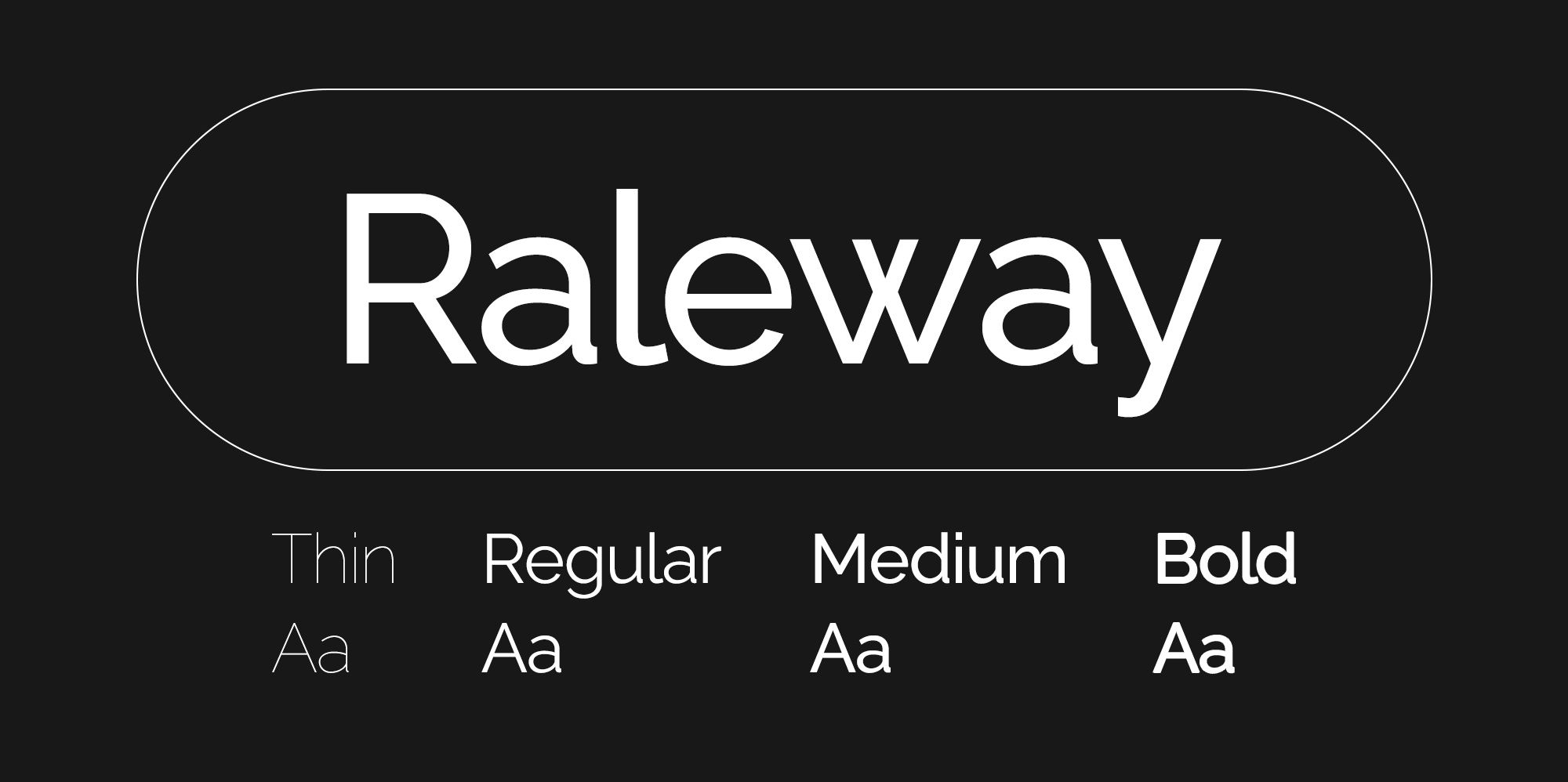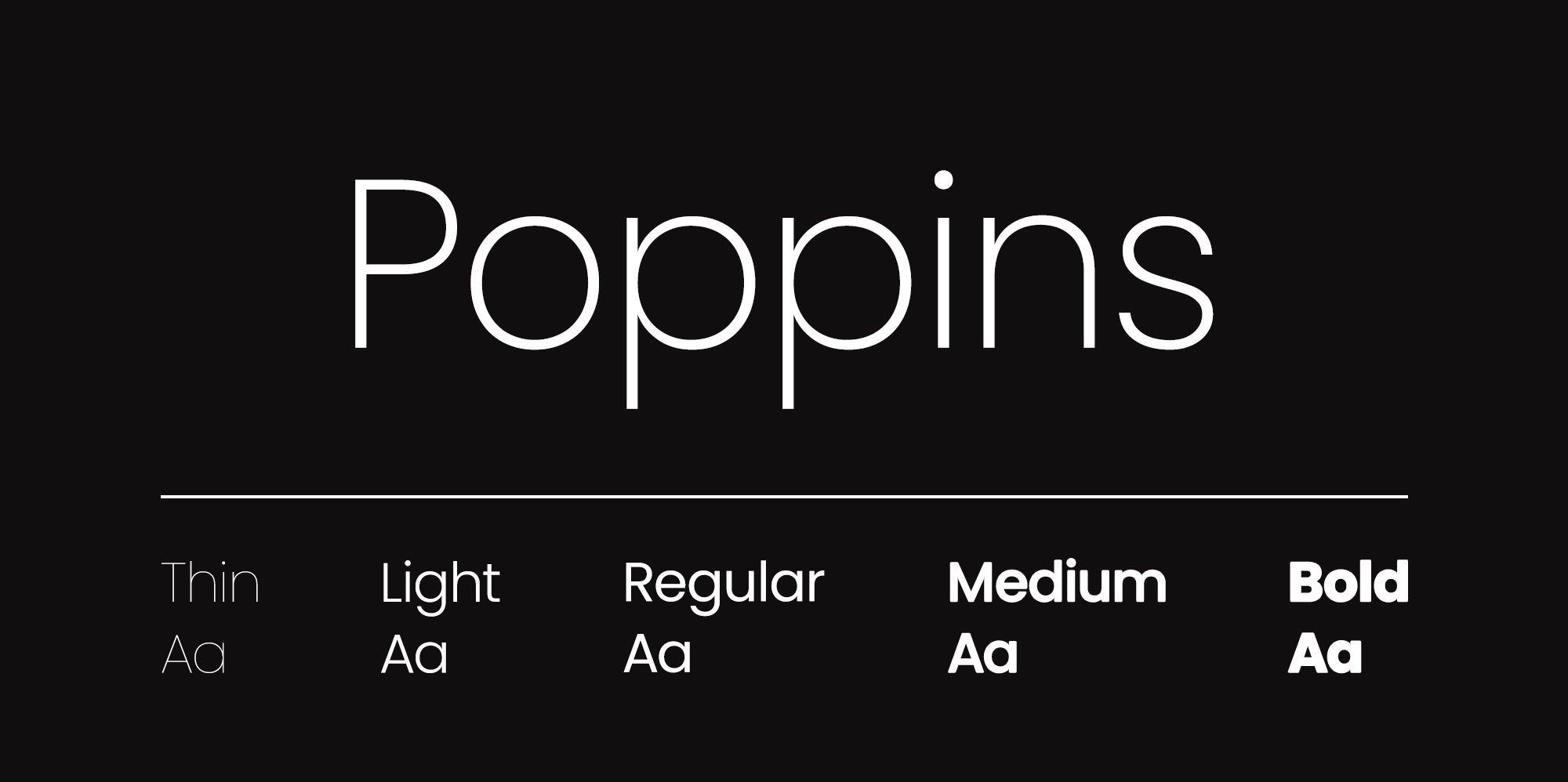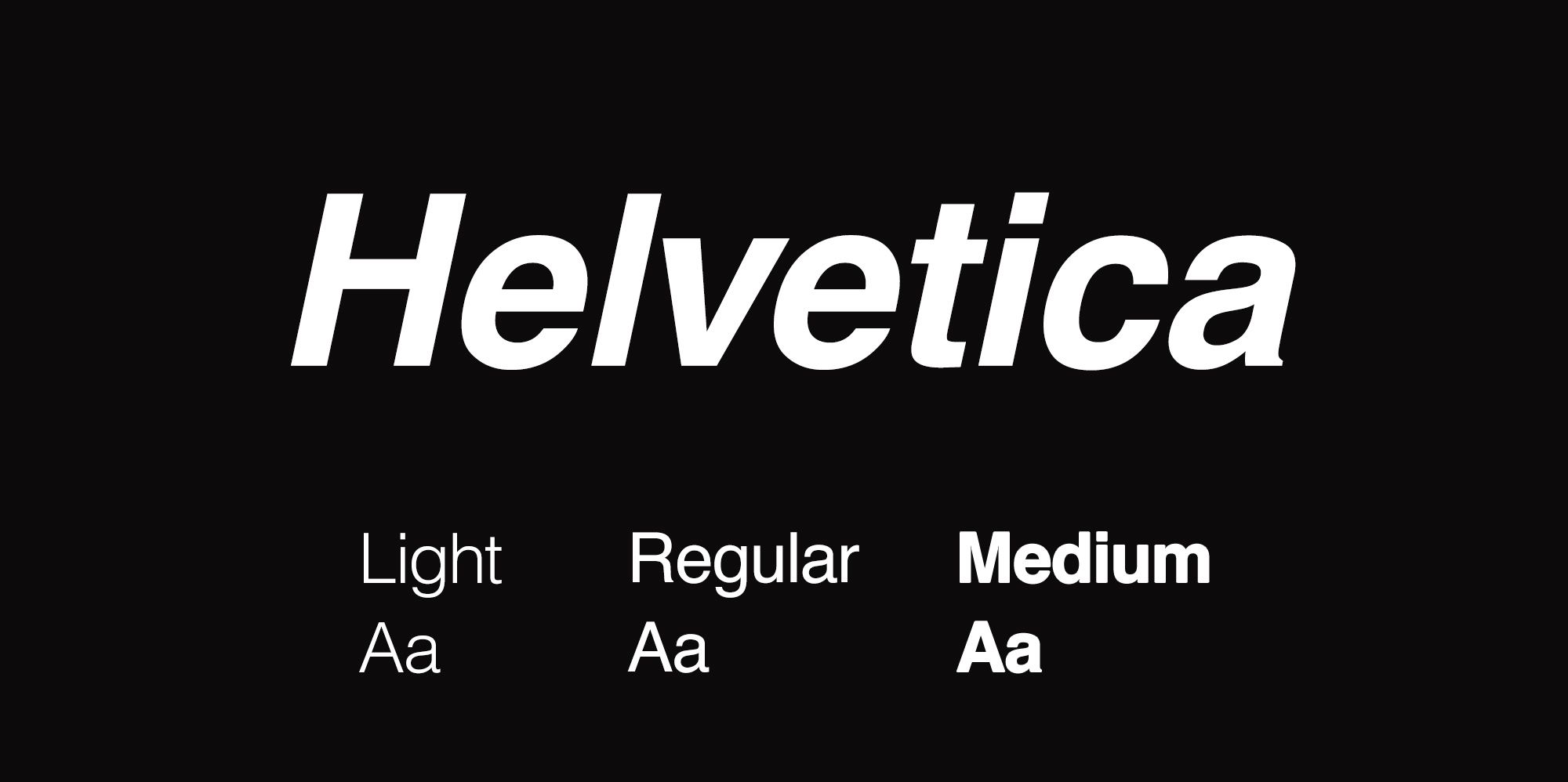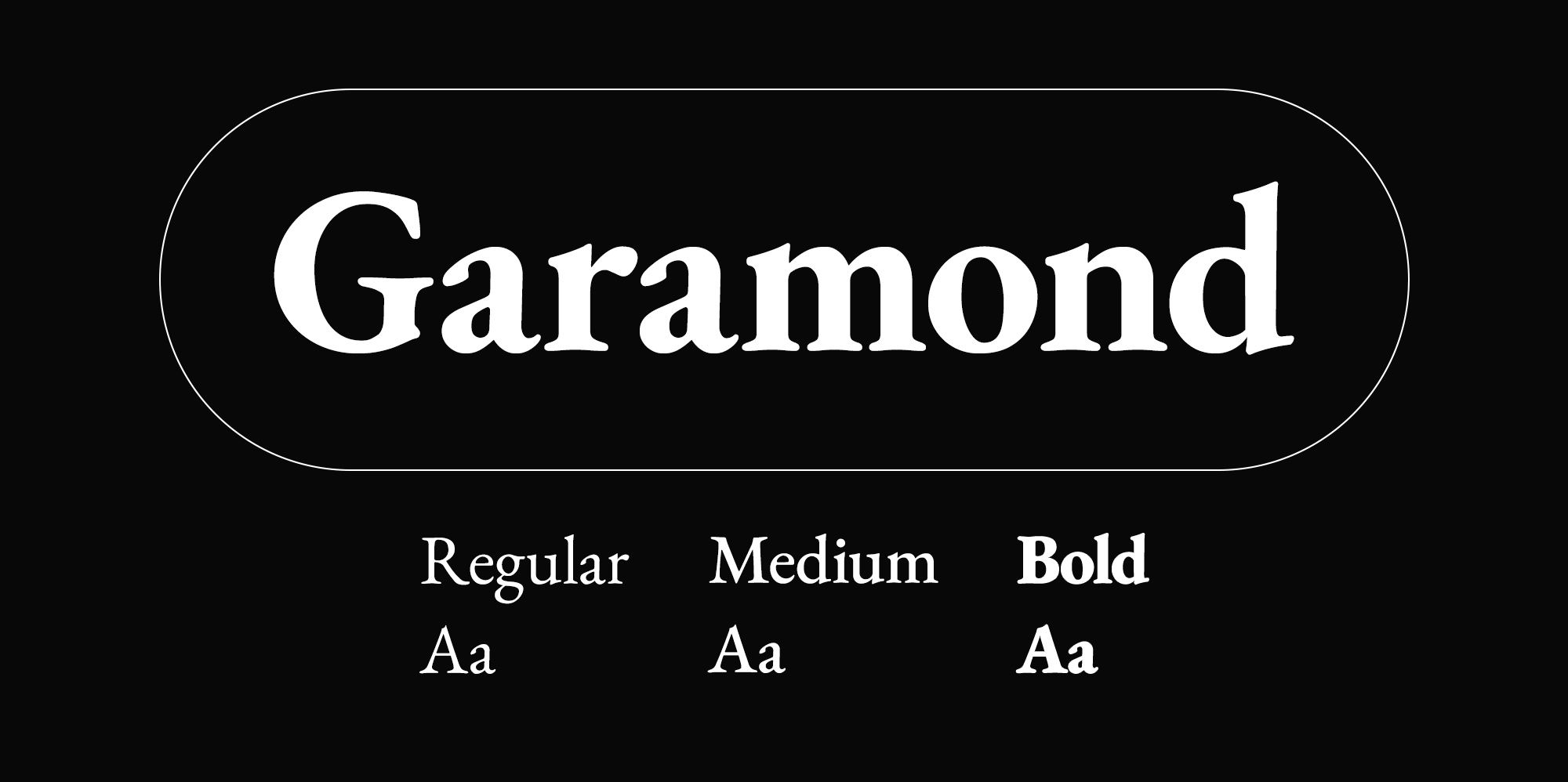
8 Fonts for Logos That Will Inspire You
Looking for the perfect typeface for your logo? Discover 8 inspiring fonts that will take your logo design to the next level.
When making a new logo for our brand, there are several factors that are very important to take into account. Some of them are more striking, such as color and shape, and others may go unnoticed.
One of the most relevant features of a logo is the typography. There are countless types of fonts and, if we do not have much idea of graphic design, we may think that choosing the right one is as easy as choosing the one you like the most. But the font says a lot about your brand, it has to be in tune with what you are selling and with the public you are addressing, that is why it is essential not to take this decision lightly.
In this article, we are going to share with you some of the best fonts for logos. Discover them and pick the one that best suits your brand.
Raleway
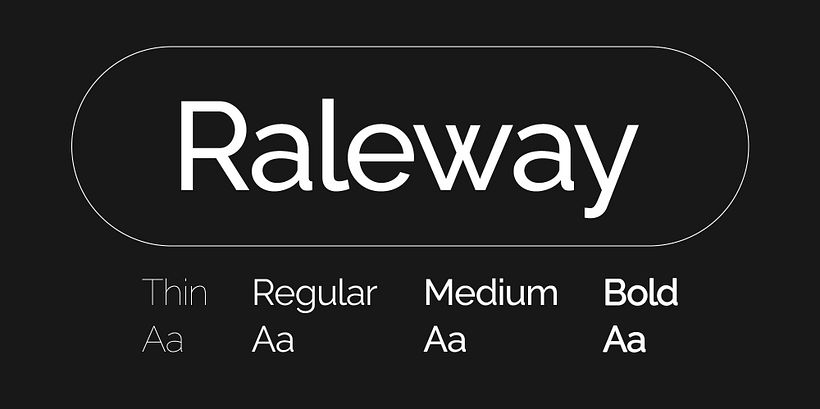
The Raleway typeface is like the versatile artist of the lettering world. With a modern elegance, its geometric forms offer a perfect balance between contemporary and classic. Each stroke features a carefully designed line to convey simplicity and style, bringing words to life with grace and clarity. It is the ideal choice for projects that seek a polished, legible aesthetic without sacrificing an edgy touch.
Futura
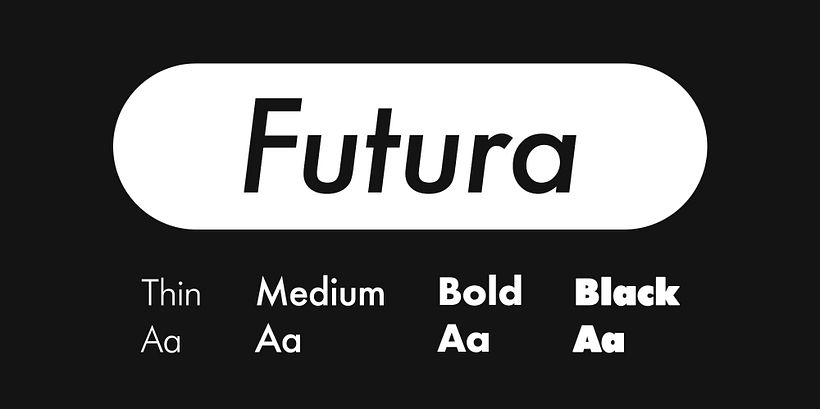
Futura is a masterful balance between classic and avant-garde. With geometric lines and perfect proportions, it has an elegant design that gives it a modern look without losing the grace of tradition. Futura's simplicity is its greatest virtue, providing exceptional legibility and clarity in every word. In short, it is the ideal choice for those seeking a sophisticated, contemporary aesthetic with a touch of timelessness.
Poppins
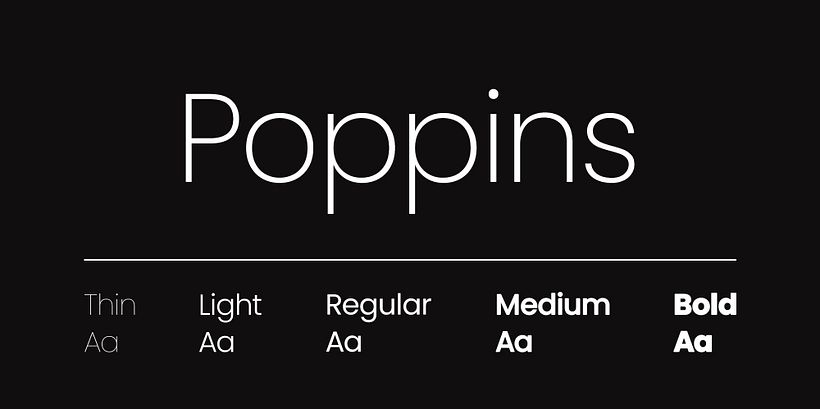
Poppins is a logo typeface that exudes vitality and modernity. With its geometric design and clean lines, each feature is presented as a blank canvas to express your identity with a contemporary aesthetic. Its style is a breath of fresh air, adaptable and versatile, capable of integrating into diverse designs without losing its distinctive character. Poppins becomes the ally that brings elegance and simplicity, transforming your logo into a lasting visual statement. The ideal choice to convey a contemporary and dynamic image with a touch of timeless sophistication.
Helvetica
Helvetica is the very essence of typographic elegance in a logo. Its clean lines and perfect balance offer a simplicity that transcends time. Each letter, with its geometric shape, is like a pillar of clarity and legibility. It is the timeless choice for a logo and confers a modern and versatile aesthetic. Helvetica presents itself as the design confidant, bringing a strong and unpretentious presence. Each stroke is a statement of sophisticated simplicity and ensures that your logo stands out with understated yet powerful elegance in any context.
Garamond
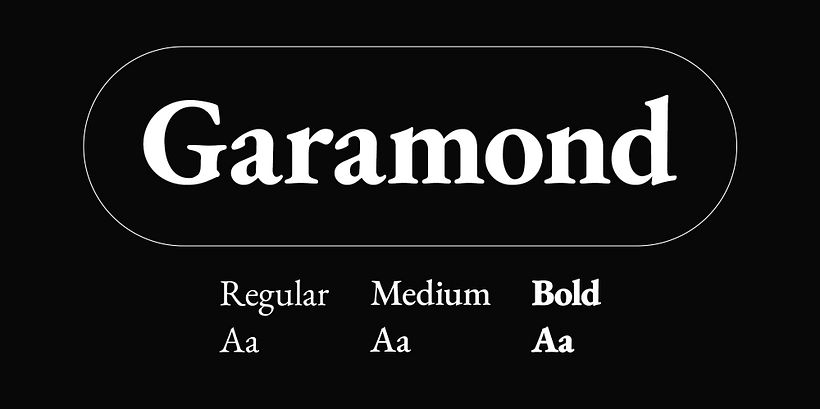
Garamond for a logo is a perfect balance between classic elegance and modern legibility. Its thin strokes and balanced proportions give each letter a refined and timeless aesthetic. The Garamond typeface brings a sense of subtle authority, perfect for logos that seek to convey a touch of tradition and seriousness. Every feature, from the delicate curves to the precise details, combines to create a distinctive visual identity that stands out for its enduring elegance. Garamond is the ideal choice for logos seeking a sophisticated aesthetic with a touch of history.
Univers
Univers is characterized by clean lines and balanced proportions, providing a modern and clean aesthetic. Each letter is a representation of simplicity and clarity, with a versatility that adapts to diverse styles without losing its distinctive elegance. This typeface offers a strong and reliable presence, making it a safe choice for those looking for a contemporary and timeless aesthetic in their logo.
Proxima Nova
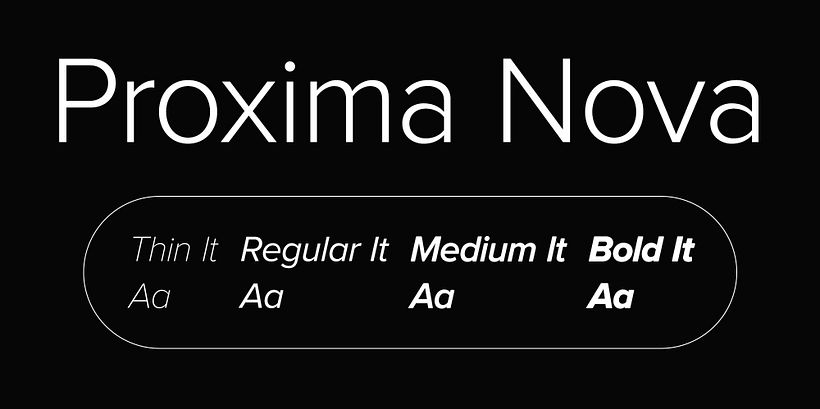
Proxima Nova in a logo is contemporary elegance at its finest. With clean lines and a modern, geometric aesthetic, each letter is a perfect fusion of simplicity and style. It is the ideal ally to mark a strong and modern presence in logo design. Proxima Nova offers exceptional legibility and versatility that adapts to various visual contexts. It is the perfect choice for those looking to convey a fresh and current image, where each stroke contributes to create a unique and memorable visual identity.
Roboto Slab
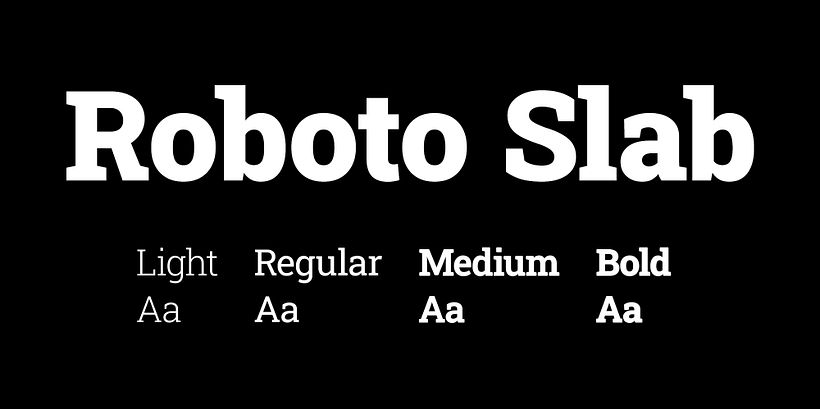
Roboto Slab is the perfect fusion of robustness and modernity. Each letter features solid lines and sharp contours, creating a contemporary aesthetic with a touch of classic strength. It's the bold choice for a logo that seeks to stand out with confidence. Roboto Slab brings exceptional legibility, combined with a strong presence that stands the test of time. Each stroke is a visual statement that conveys a mix of solidity, modernity, and elegance.